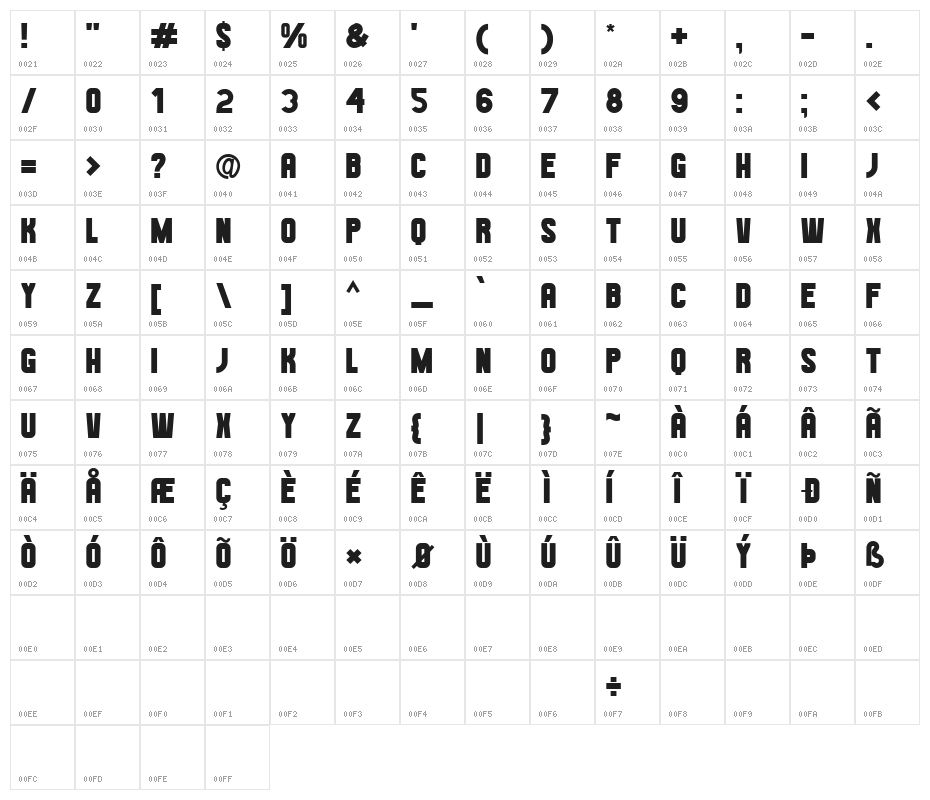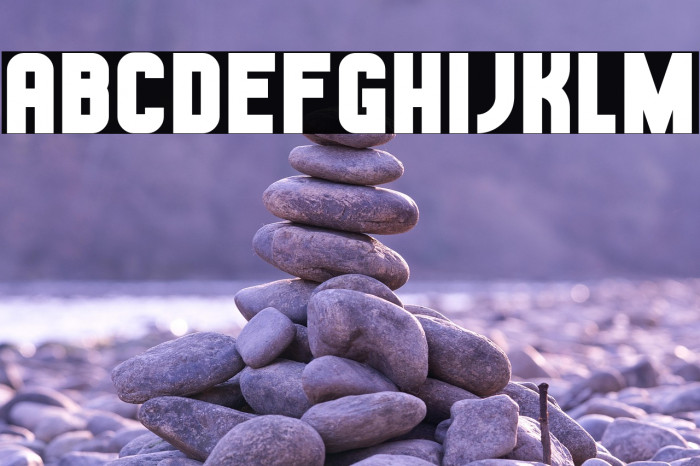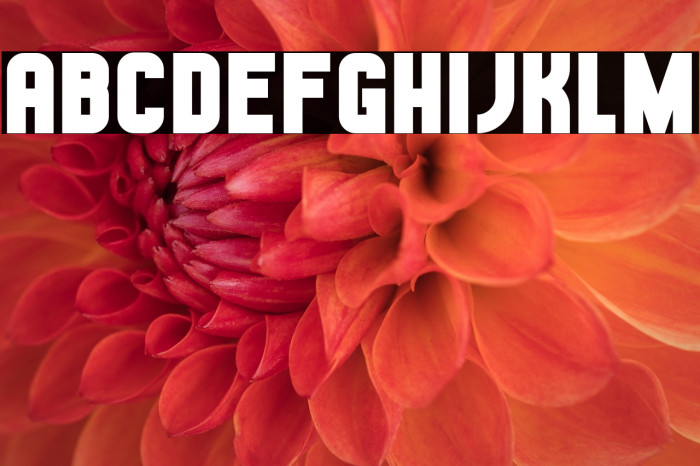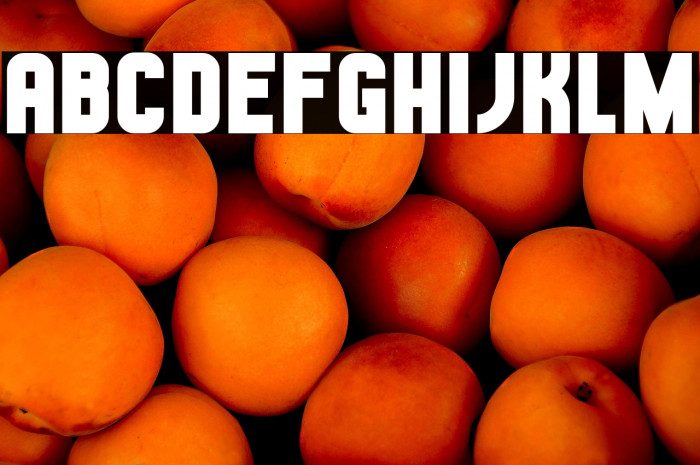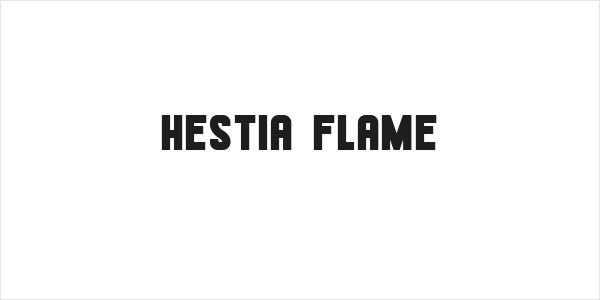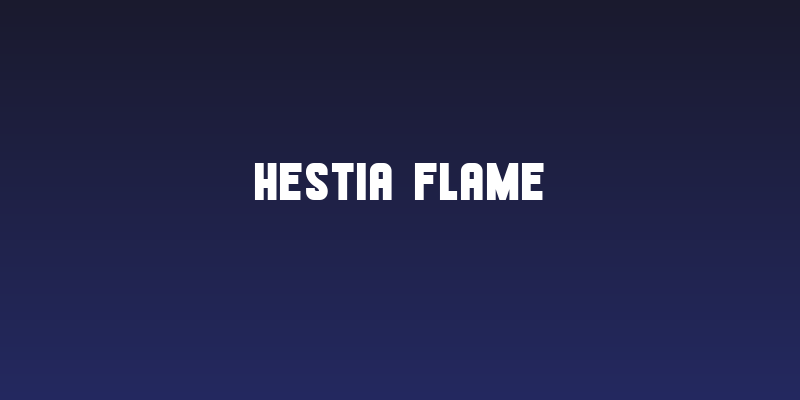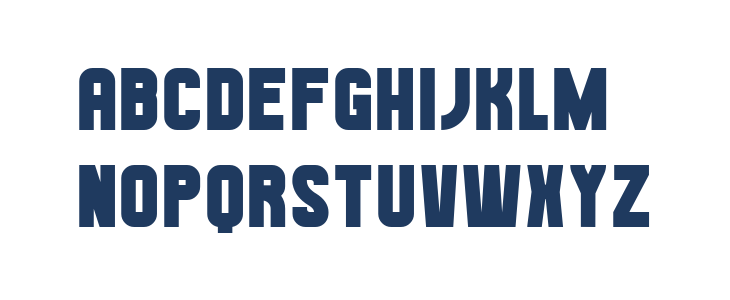
Hestia Flame Font
Hestia Flame Description
This bold, impactful font features strong geometric shapes with a modern, industrial feel. The uppercase letters are robust and commanding, with a uniform stroke width that conveys strength and stability. The numerals are equally bold, maintaining the same weight and presence as the letters. Special characters are designed with the same attention to detail, ensuring consistency across the board. This font is ideal for making a statement, with its high visibility and striking appearance.
| Proposed Projects | Ideal for branding, posters, headlines, and any project requiring a strong visual impact. |